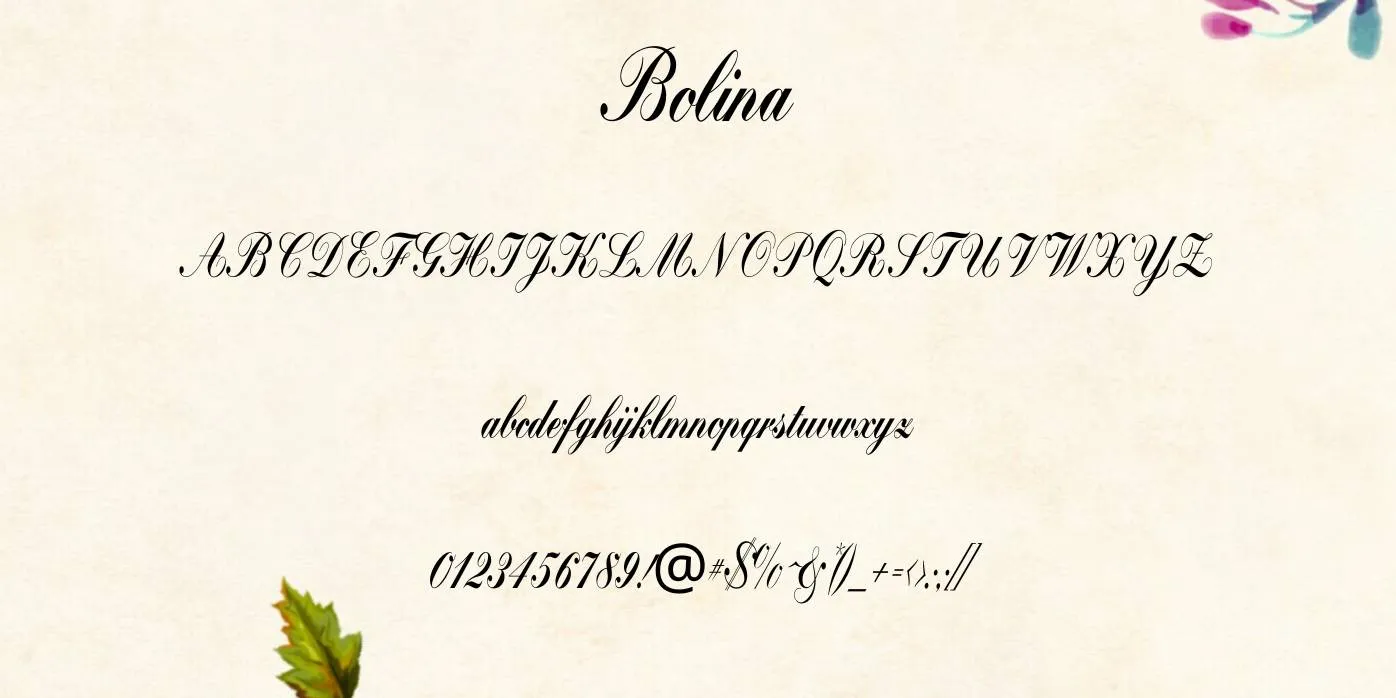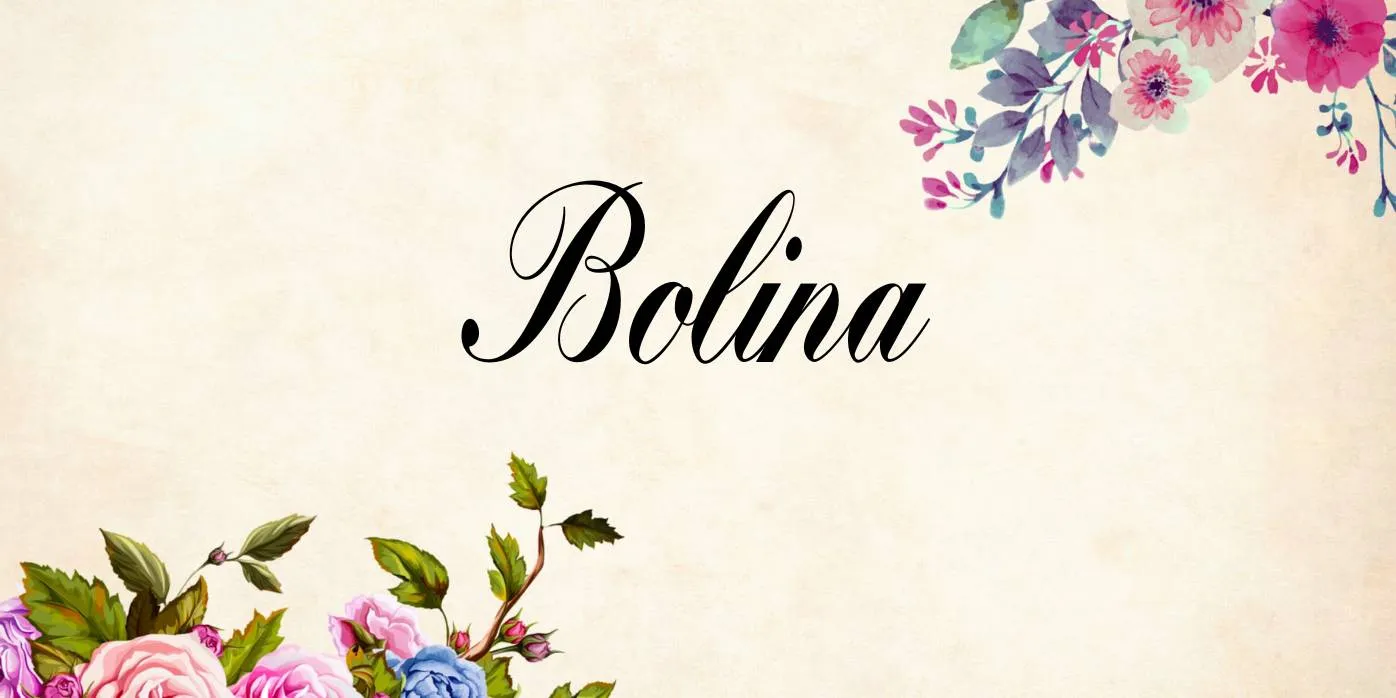
Bolina Font
Bolina Font is a calligraphy type of font. ClaudeP is the designer of this typeface. The characters of this texture are fantastic, stylish, classic, and attention-grabbing. There are 215 unique and amazing glyphs for this typeface. This typeface is available in both OpenType file [OTF] and TrueType file [TTF] file formats.
The characters of this typeface are in digits, lowercase letters, special letters, and punctuation marks. You can use this typeface in a lot of projects and designs. The typeface that looks amazing with this texture is the rasputia font. This pair has fantastic visual effects due to some stunning features for both textures.